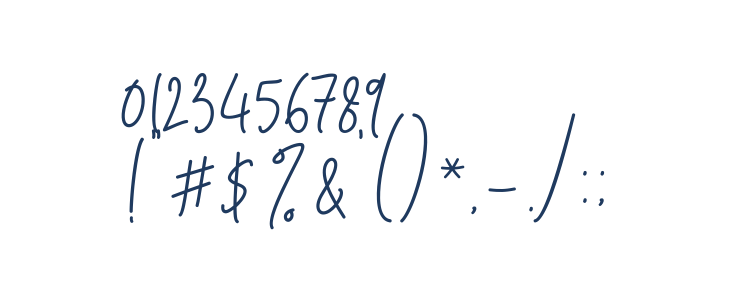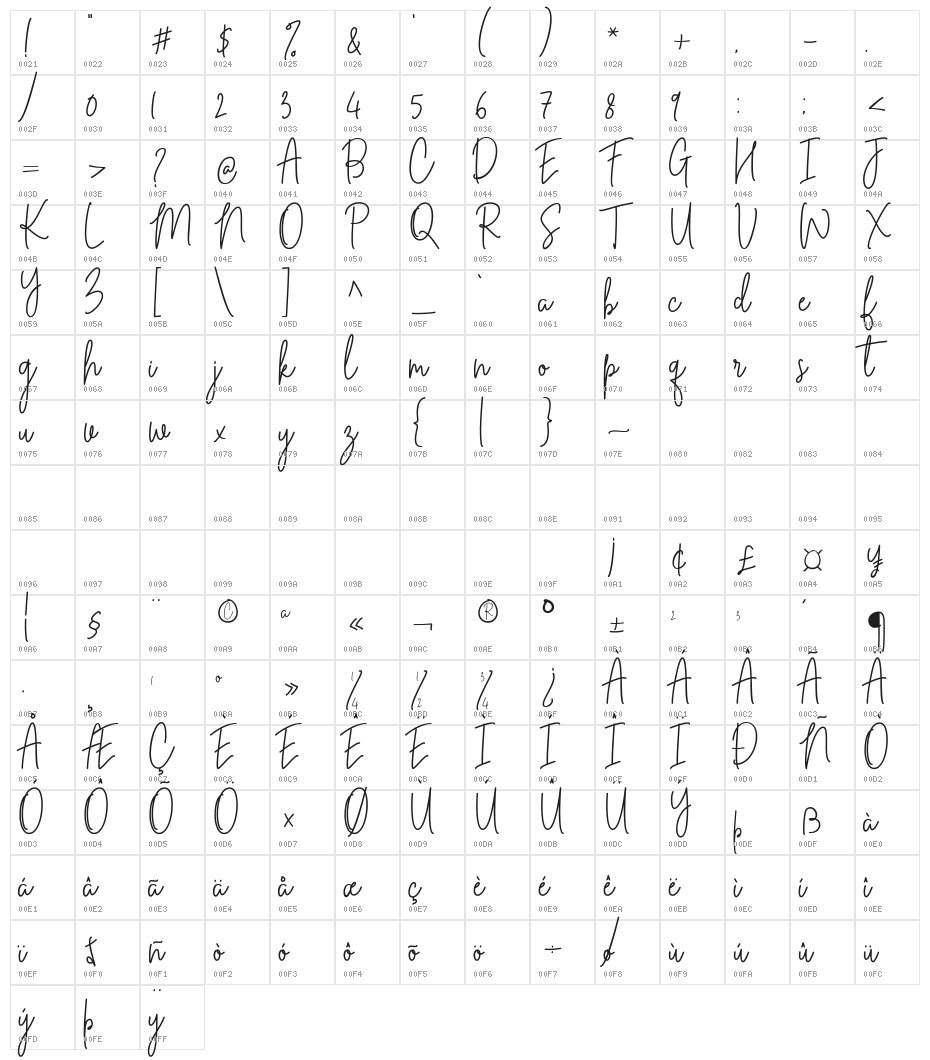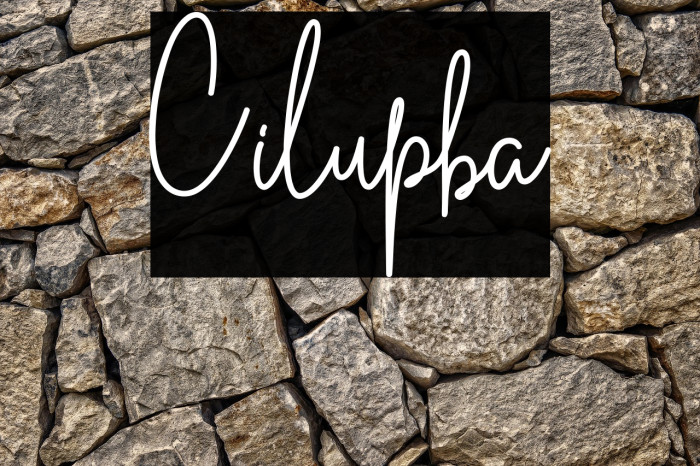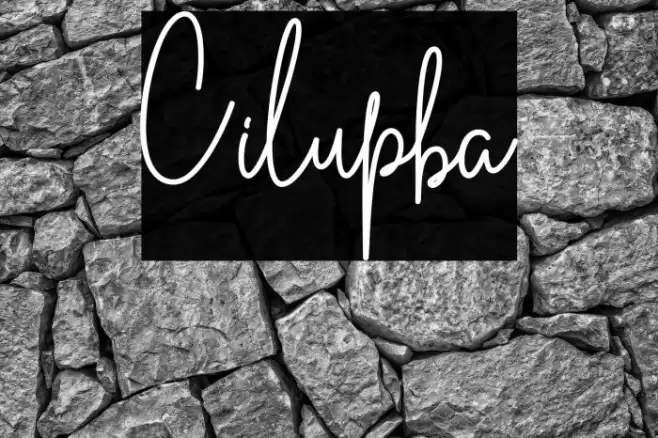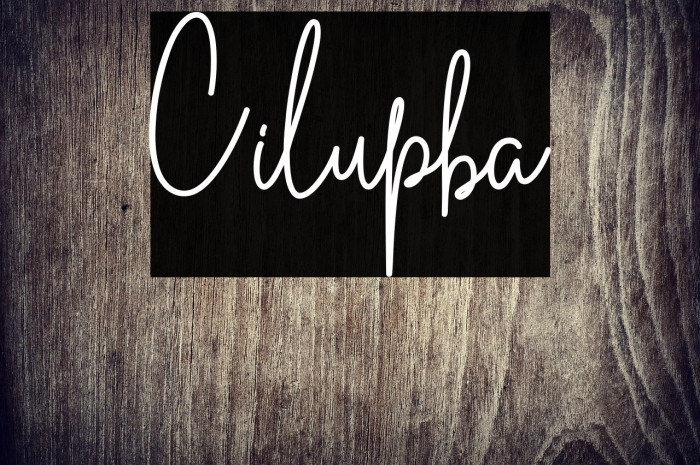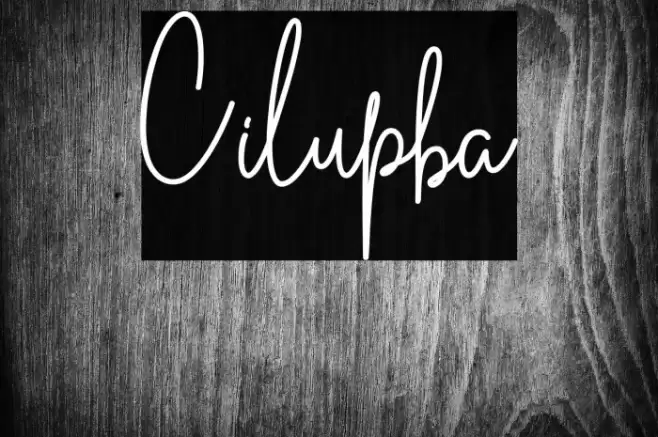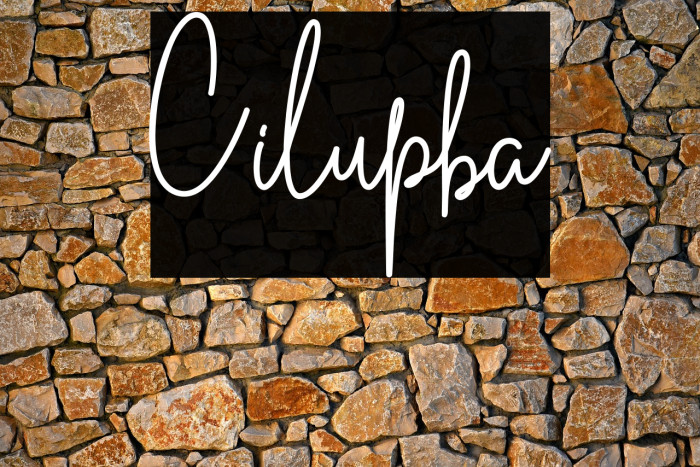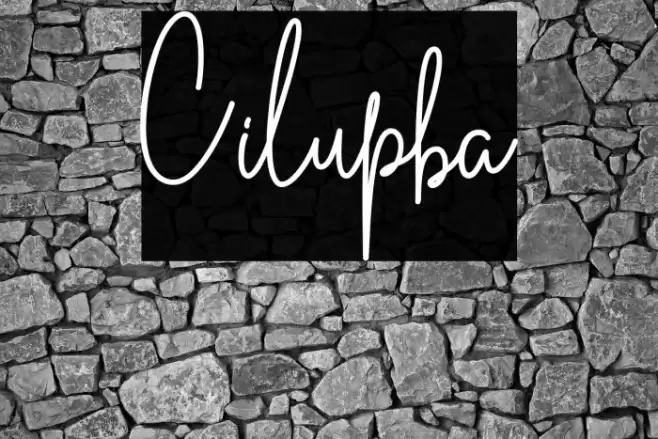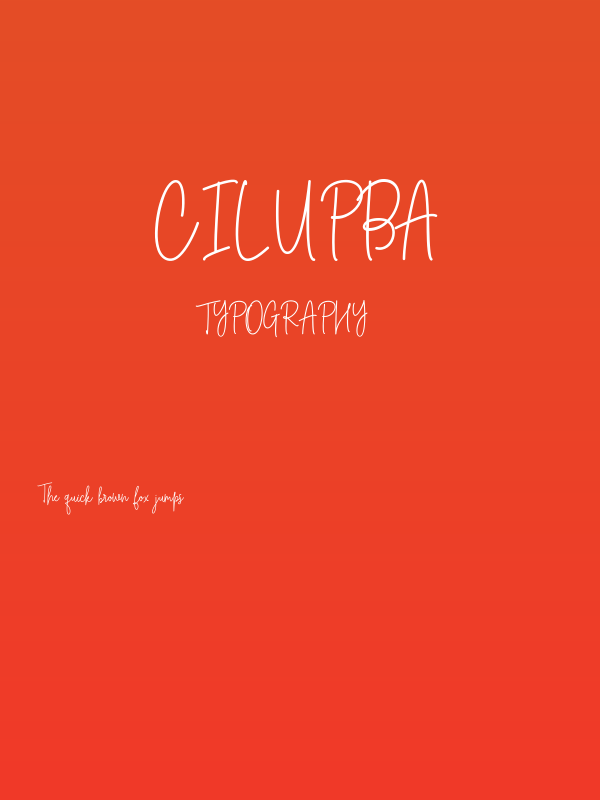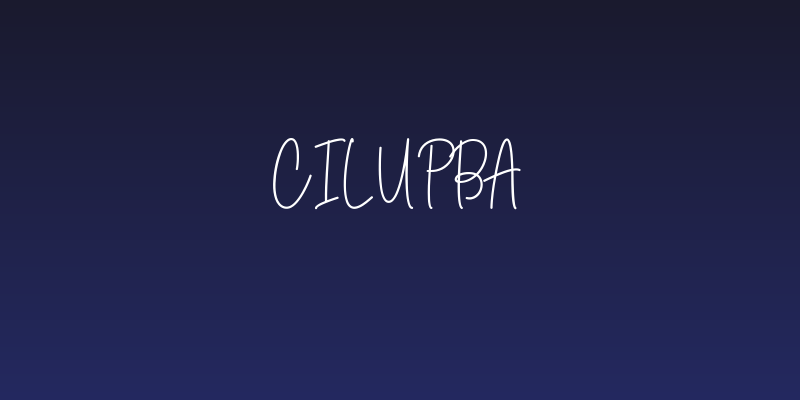
Cilupba Font
Cilupba Description
This font features a playful and casual handwritten style, characterized by its fluid and connected strokes. The uppercase letters maintain a consistent height, while the lowercase letters exhibit a slight slant, adding to the informal aesthetic. The numbers are clear and legible, matching the overall style of the alphabet. Special characters are included, maintaining the same whimsical feel. The font's design is ideal for projects that require a personal touch, such as invitations, greeting cards, or creative branding materials.
| Proposed Projects | Ideal for invitations, greeting cards, creative branding, and personal projects. |